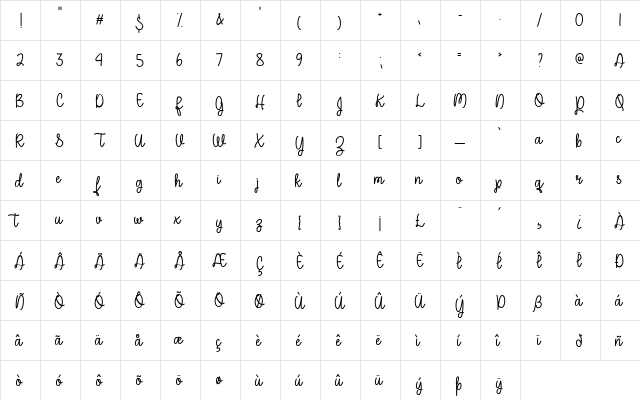
A Perfect Place Regular Font Preview
A Perfect Place Regular
A Perfect Place Regular Font Details
| Foundry | Misti's Fonts |
| Designer | Misti's Fonts |
Design Context for A Perfect Place Typeface
A Perfect Place is a composed and adaptable typeface that performs quietly and consistently across a wide range of design contexts.